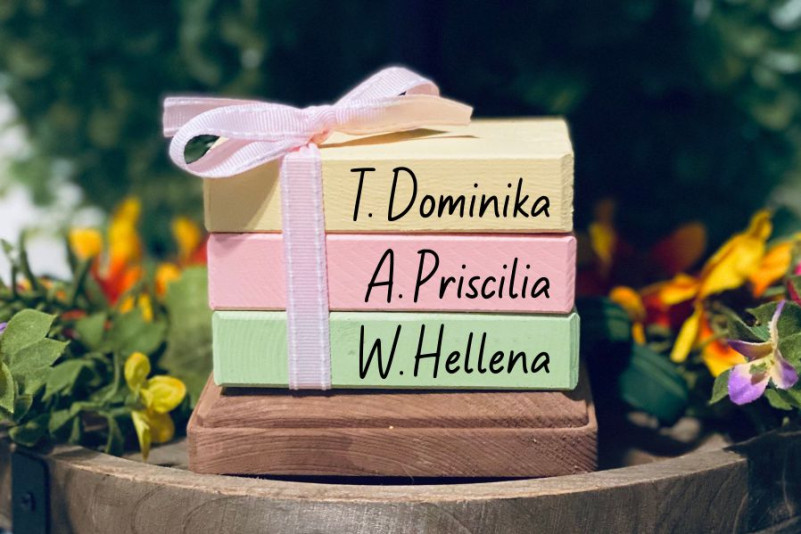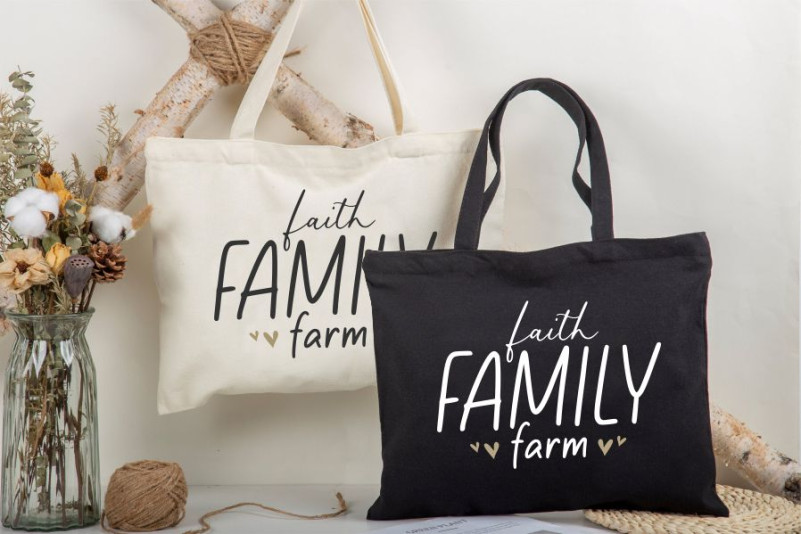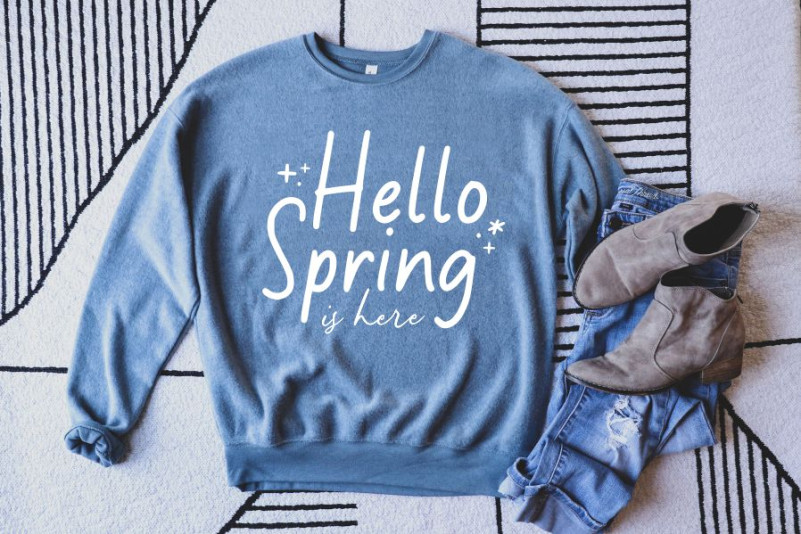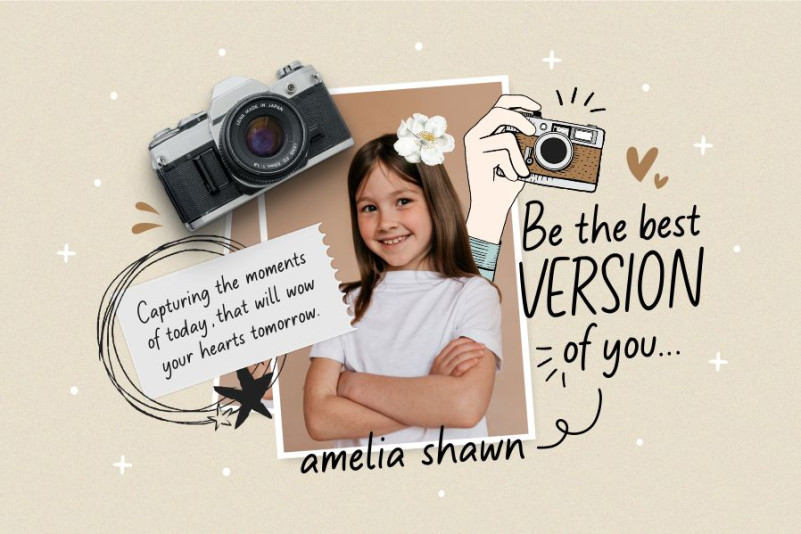
Behavioline Font
Behavioline Handwritten Font is a simple, yet classy typeface. It includes beginning and ending swashes which are perfect for adding a stylish and elegant look to your designs.
It can be used for watermarks, photography, signatures, logos, album covers, business cards, quotes, and many other design projects.